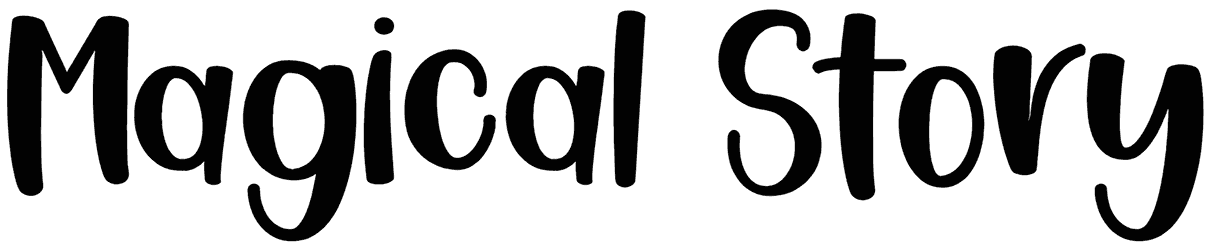
Power Sell Font
Power Sell font is very exciting and fun. With the curly lines in the characters, it can provide excitement and joy in many childish designs such as birthday themes, and festive flyers.
What is striking about this girly and of course summer font is the combination of large and small characters, which is a great match for a variety of logos, T-shirts, and business card designs.
Designed by: Zainstudio